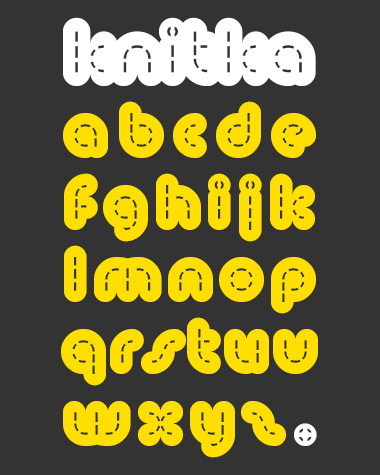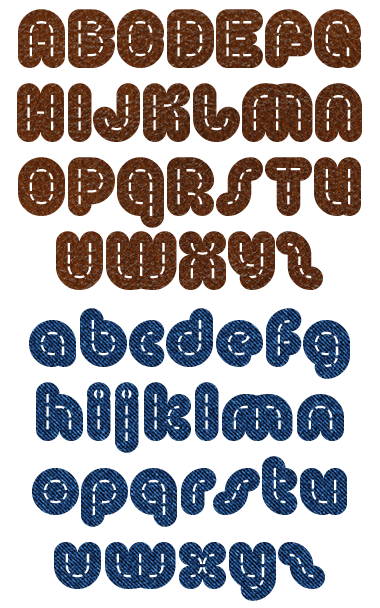
Very creative with very high difficulty level.
I tried something like this... pessimism occurred. 10/10+fav
No wonder I like it, it's 95% the same as my NCD Mooch Rounded II which I designed in 2008 (based on Mooch by Afrojet)
The upper case is 100% possible.
Thanks. Filters here are 2x2 (NCD Mooch is smth like 1.8x1.8), and the stacking method is that of Teris, so that letters like c,e,r etc would be possible.
Stitches were created to cover up for some imperfections of Teris's stacking method, but of course this one's not perfect too.
That's cool, I realise how you created it. I actually did a test on NCD Mooch (once I'd found it!).
I am very impressed by your thought process. You're design is at a higher level of creativity, as it has the inline. Which is something that would have never even crossed my mind. :)
Ingenious.
soft and round I love IT
like p2pnut said
This is the Jalgas of the Inlinecomp. ;-) Incredible work! I hope you'll do Uppercase...
I like how the competitions squeeze even a little more creativity out of fontstructors. Incredible piece of work!
Indeed a very high skill here
my favorite entry so far: clean, ingenious, pretty. this is a winner. 10
The deceptive simplicity is captivating.
amazing entry. it's like magic. good luck.
Very pretty. It is amazing how you combined bricks to form the pattern you wanted. You certainly have a gift to order bricks to form any shape or form you've imagined, and they always do your bidding. 10/10
I only see the numbers: 1, 4, 6, 8, and 9.
add rest of numbers.